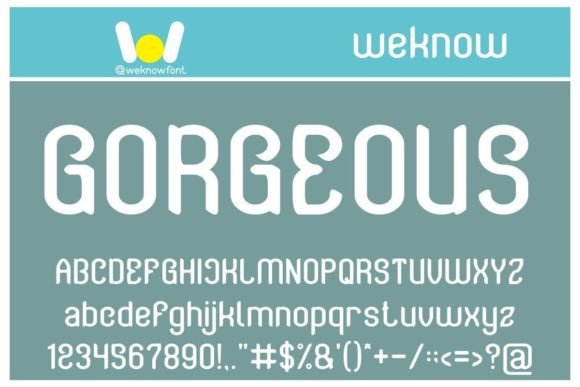
Gorgeous Font
About the Gorgeous Font
Crafted with precision, the Gorgeous Font is ready to bring your ideas to life. Gorgeous is a trendy and cool display font with a strong and expressive character. Its versatility will make it suitable for a wide pool of projects that need a modern vibe.
Gorgeous excels as a headline font for posters, branding materials, and short-form text on packaging. Its strong character makes it ideal for projects needing a bold, modern statement. However, its expressiveness makes it less suitable for body text or UI elements where legibility over long passages is crucial.
The font’s inherent coolness is best complemented by pairings such as a clean sans-serif like Helvetica for body copy, or a classic serif like Garamond for a more traditional contrast. For a more playful feel, consider pairing it with a rounded geometric sans-serif.
Gorgeous projects a confident, trendy personality. It’s perfect for brands aiming for a youthful, energetic image in fashion, music, or technology sectors.
Gorgeous Font Usage Examples
Gorgeous Font Example